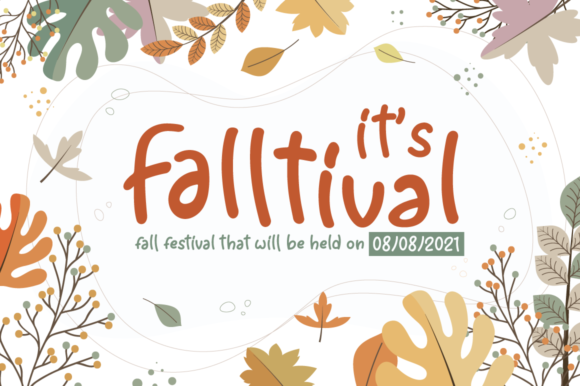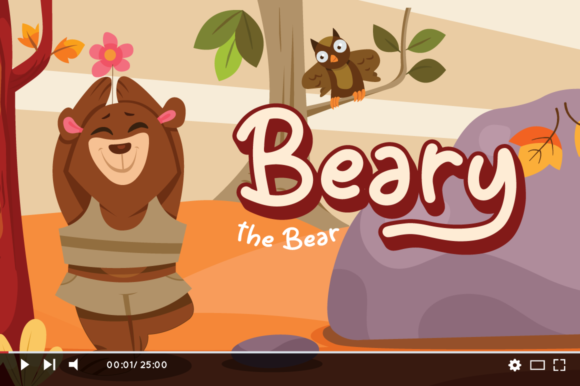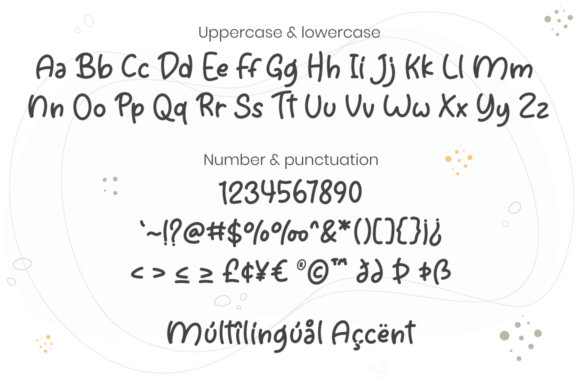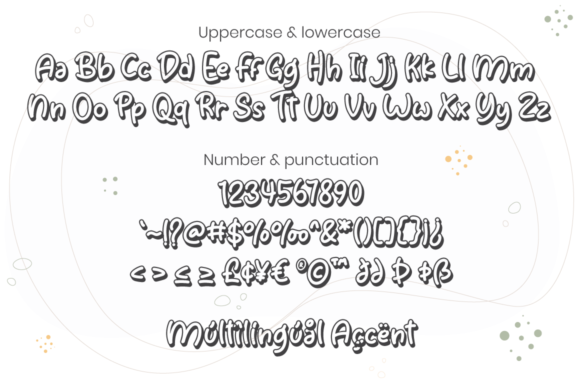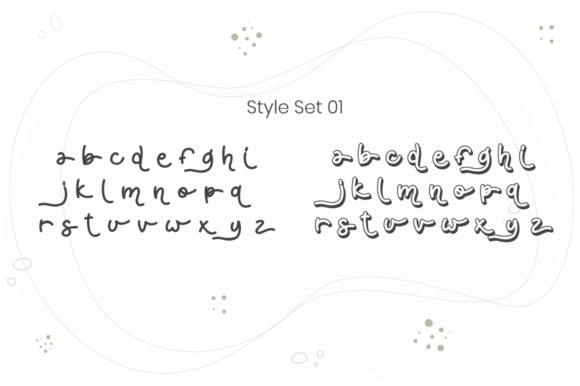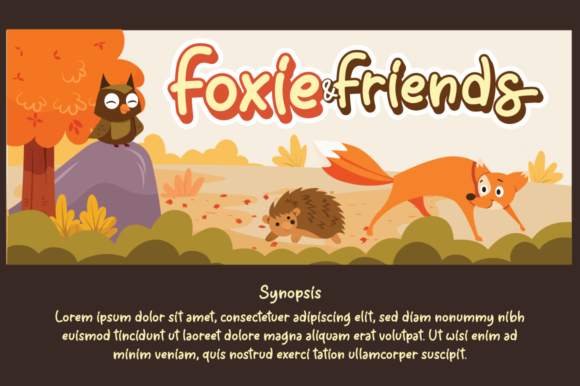
Introduction to Agfolan Font
Agfolan is a simple and flowing handwritten font.
This adaptable font will look great on a variety of design ideas It will add a fun and friendly touch to each of your projects.
Agfolan Font offers exceptional quality and versatility, making it a valuable addition to your design toolkit. Whether you’re creating for personal projects or commercial use, Agfolan Font delivers professional results.